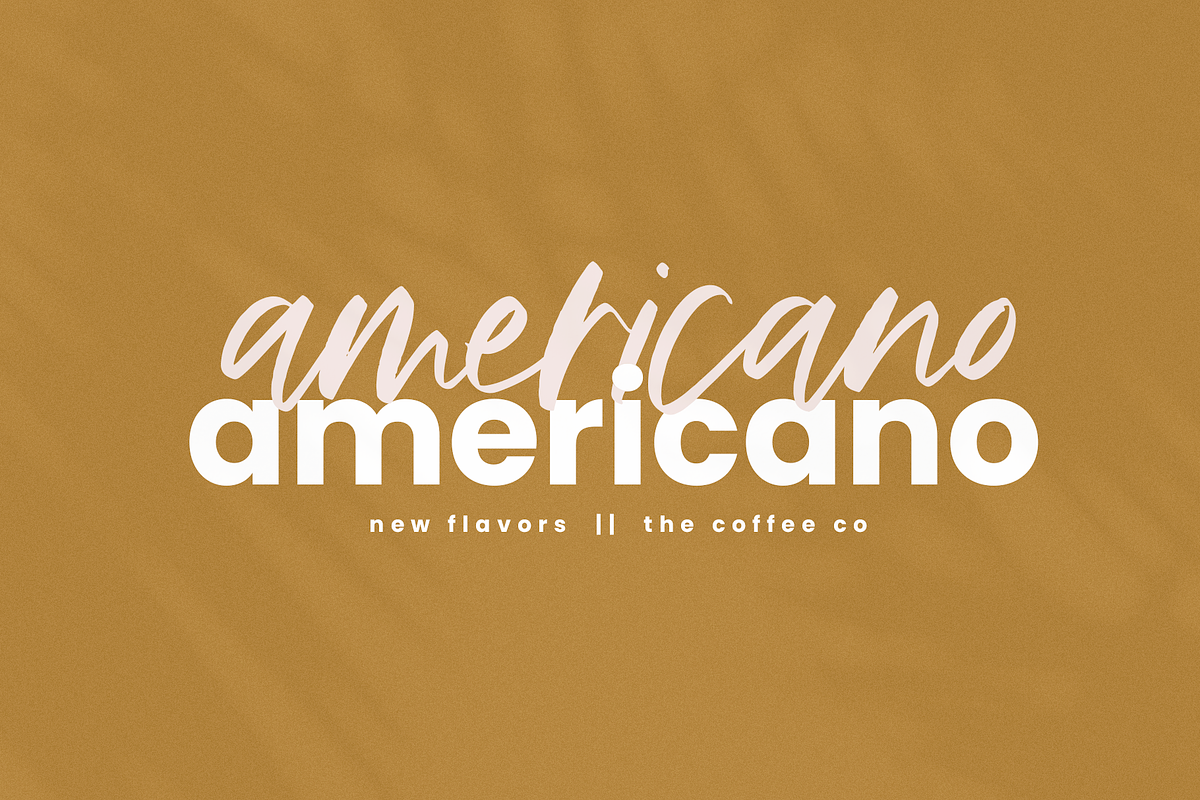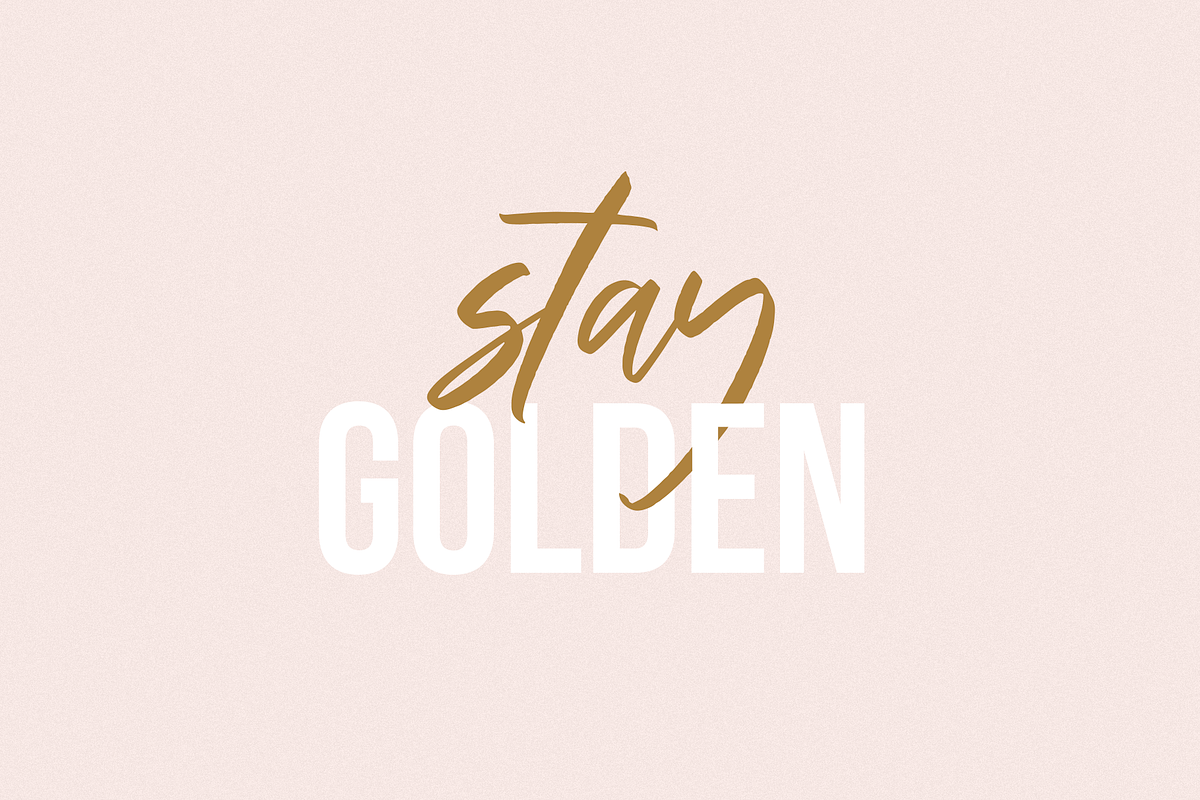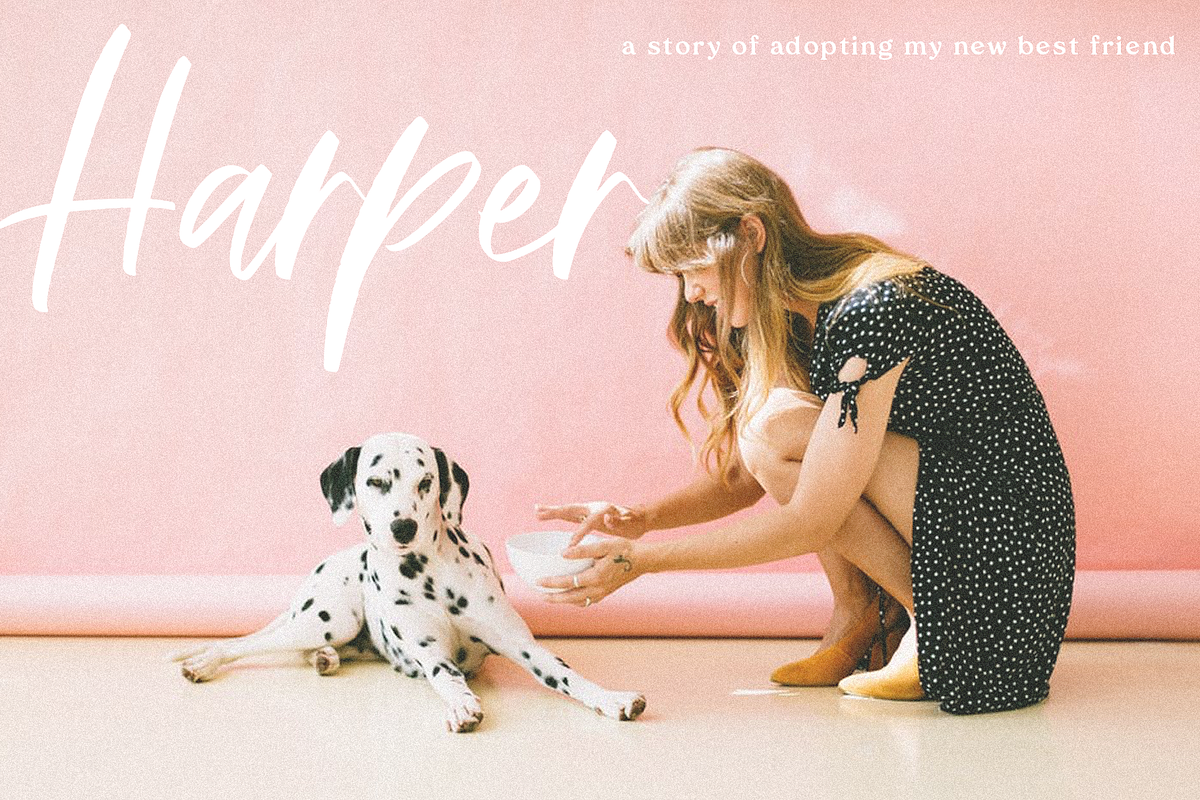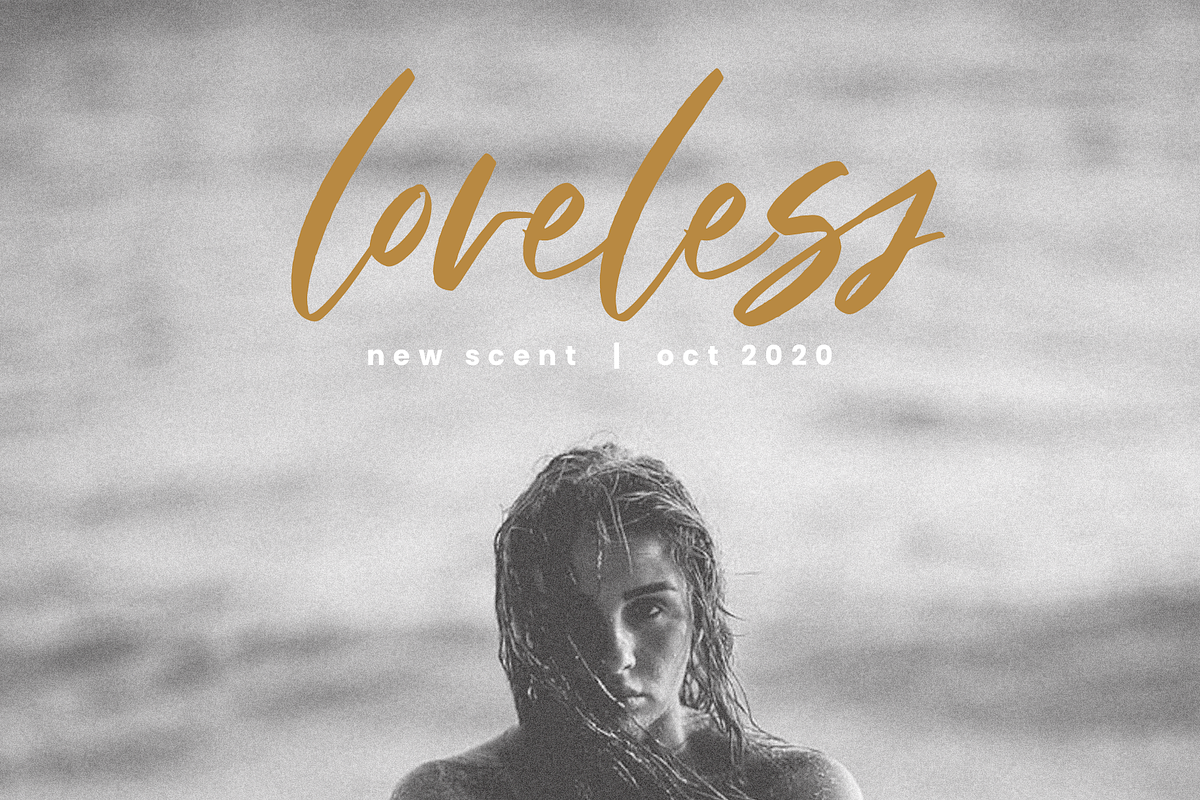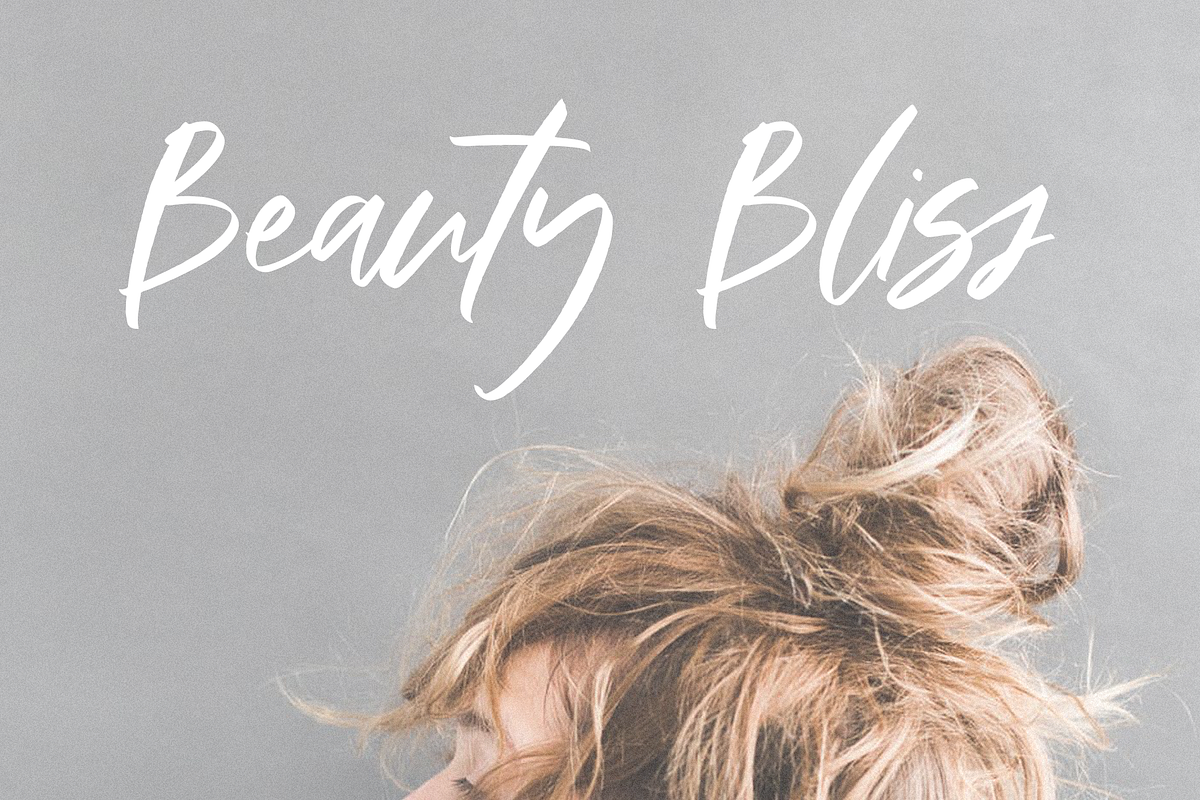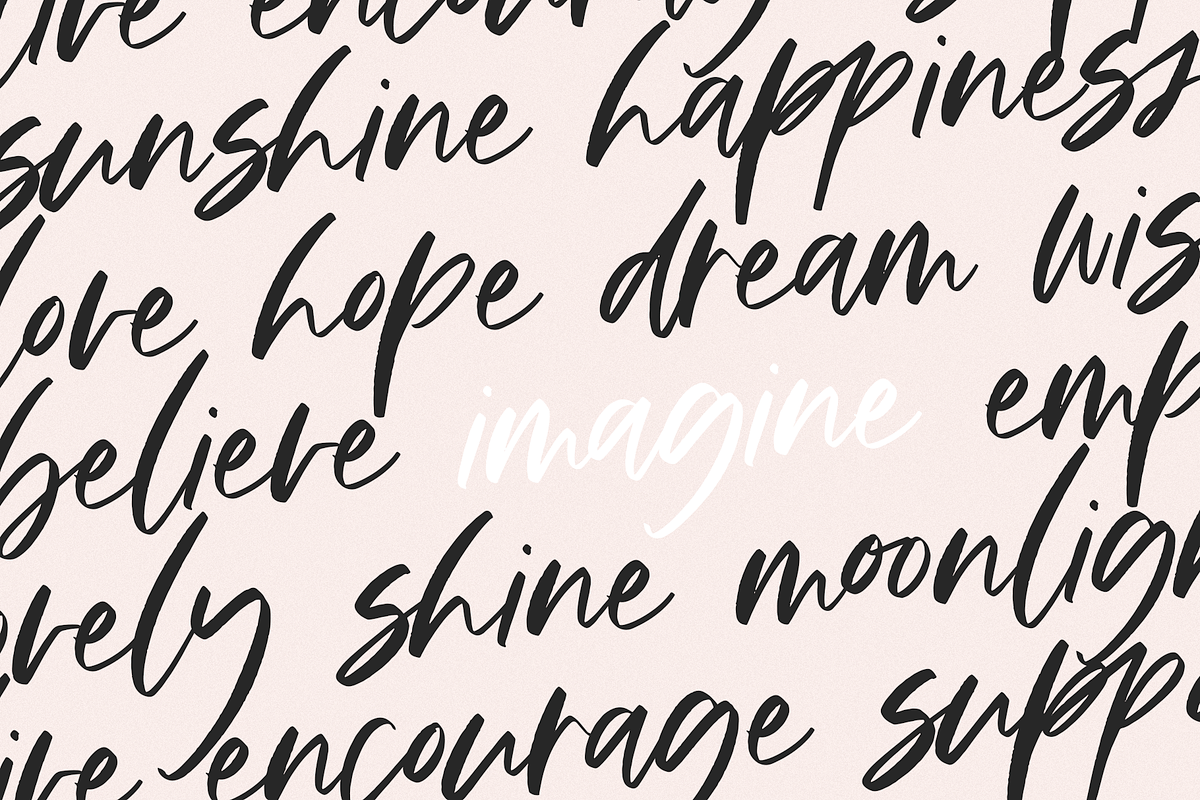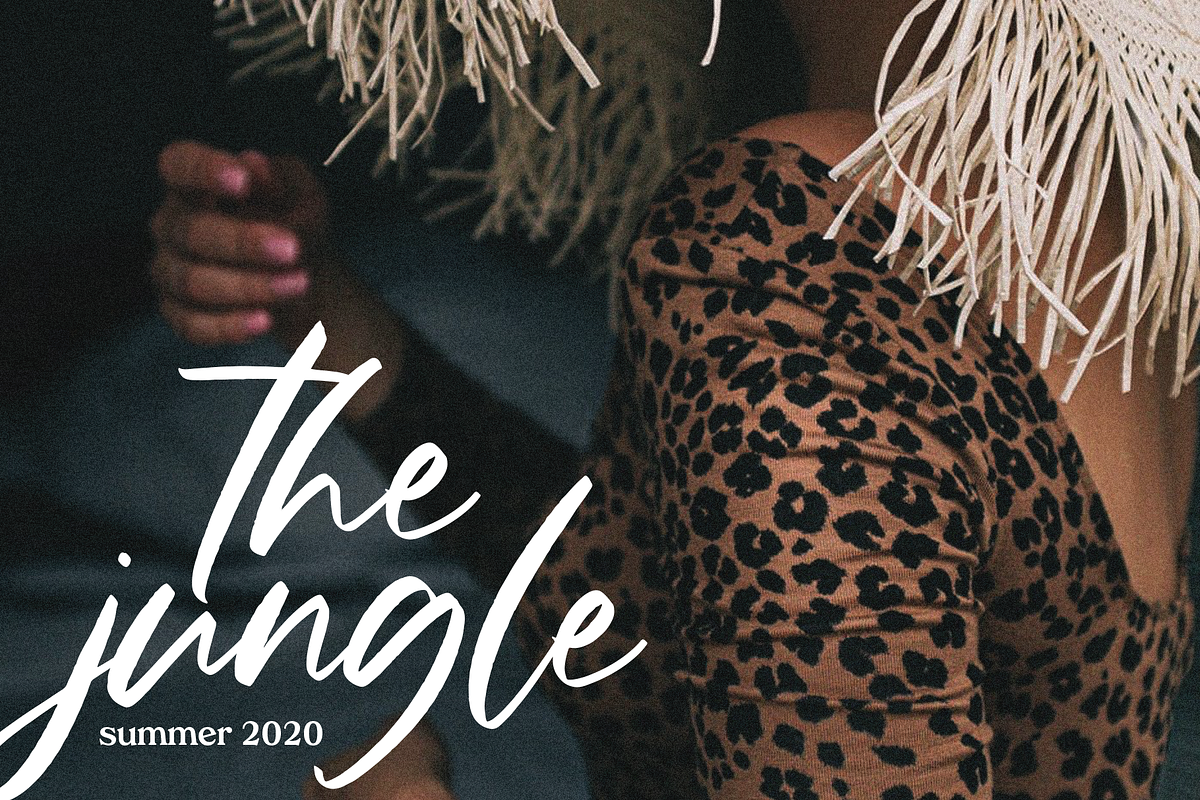
Happiness | Handwritten Script Font
Happiness is a modern handwritten font with a brush texture. The authentic texture & slant makes it a perfect choice for branding and digital designs. Use this font for logos, social media, websites, blogs, instagram, social media, business cards, branding, and more!
Most accent characters included